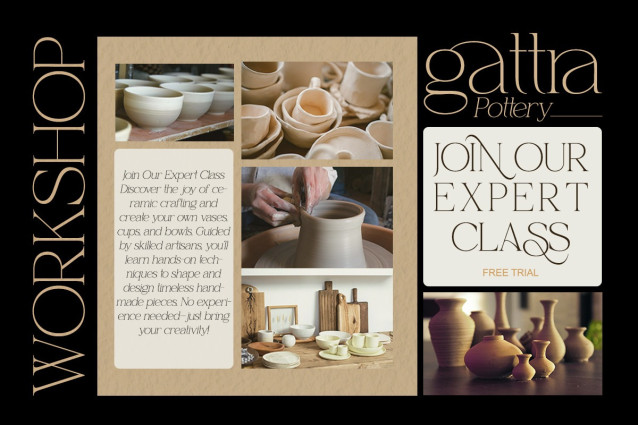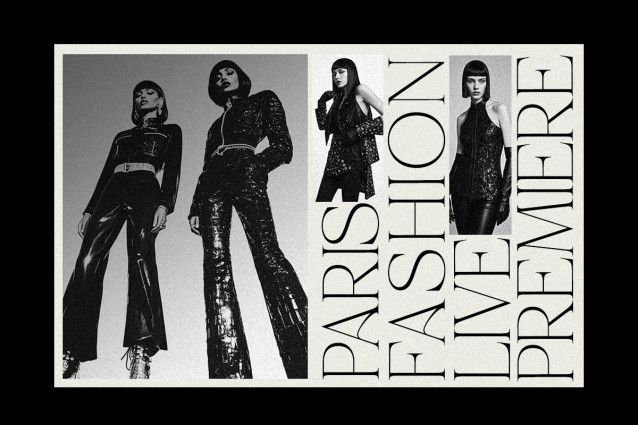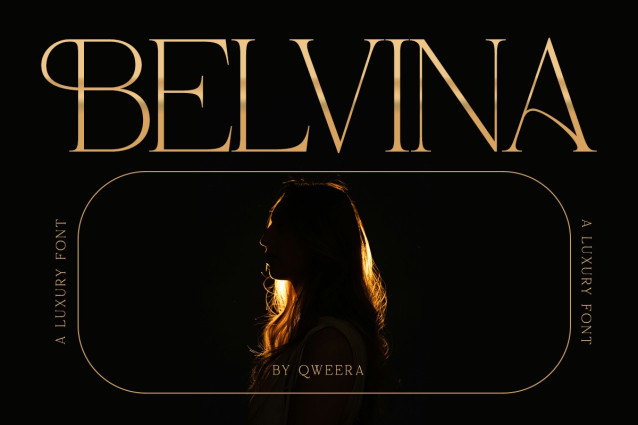
Belvina Font
Belvina Font is a statement of elegance and modernity—crafted as a luxury serif typeface that merges high-end sophistication with clean, contemporary styling. The delicate curves, sharp contrasts, and graceful ligatures of Belvina make it ideal for designers aiming to project prestige and professionalism.
Whether you’re working on fashion editorials, premium product packaging, or exclusive branding, Belvina adds a refined finish that feels both timeless and fresh.